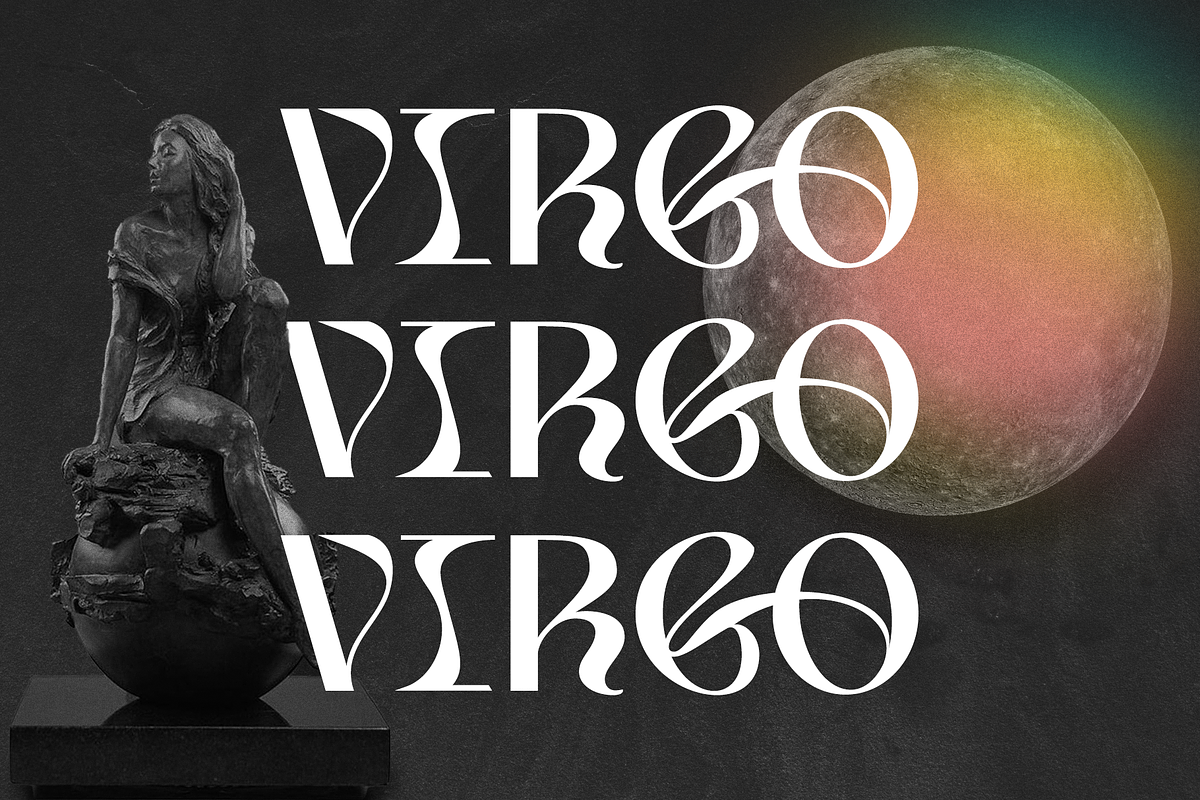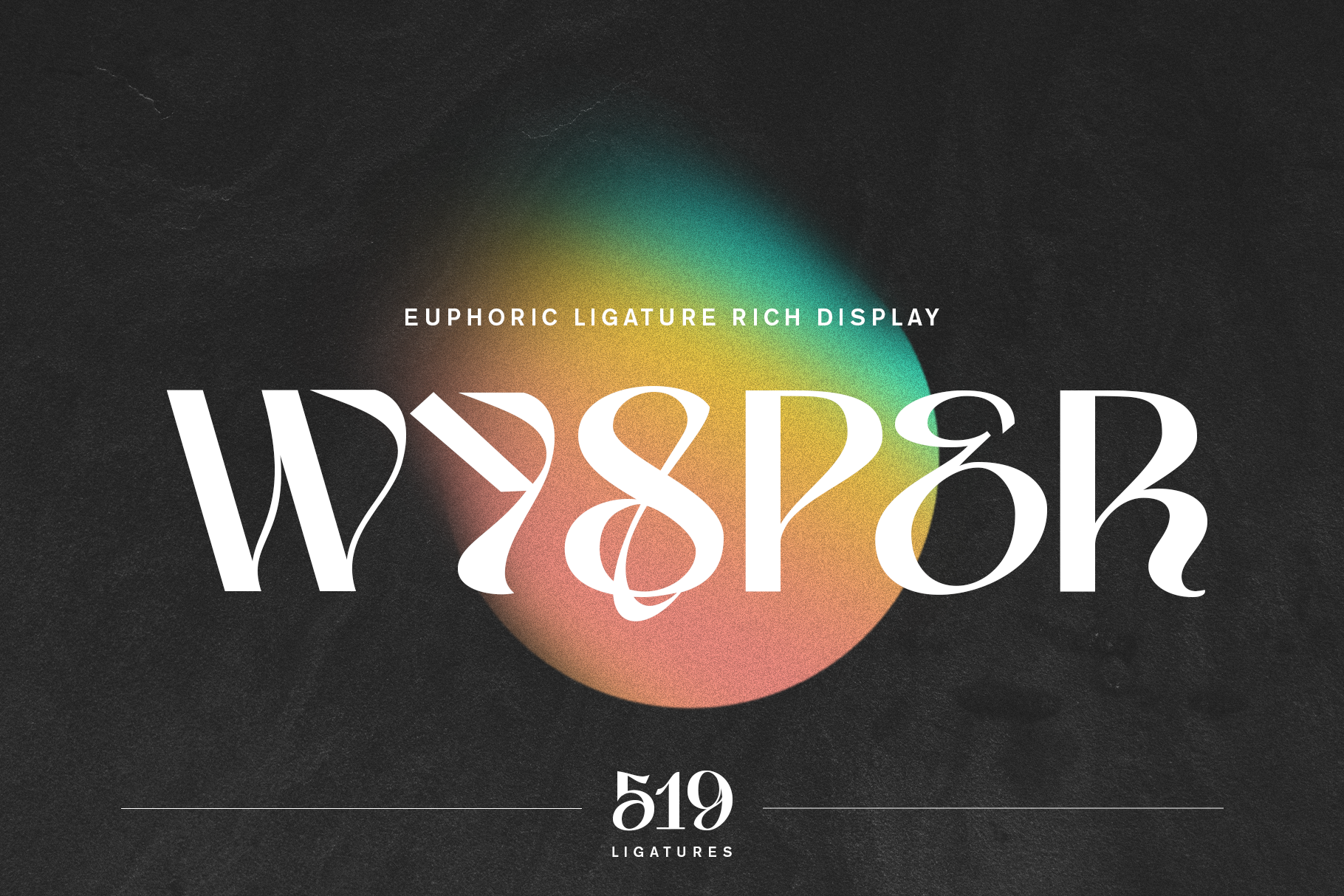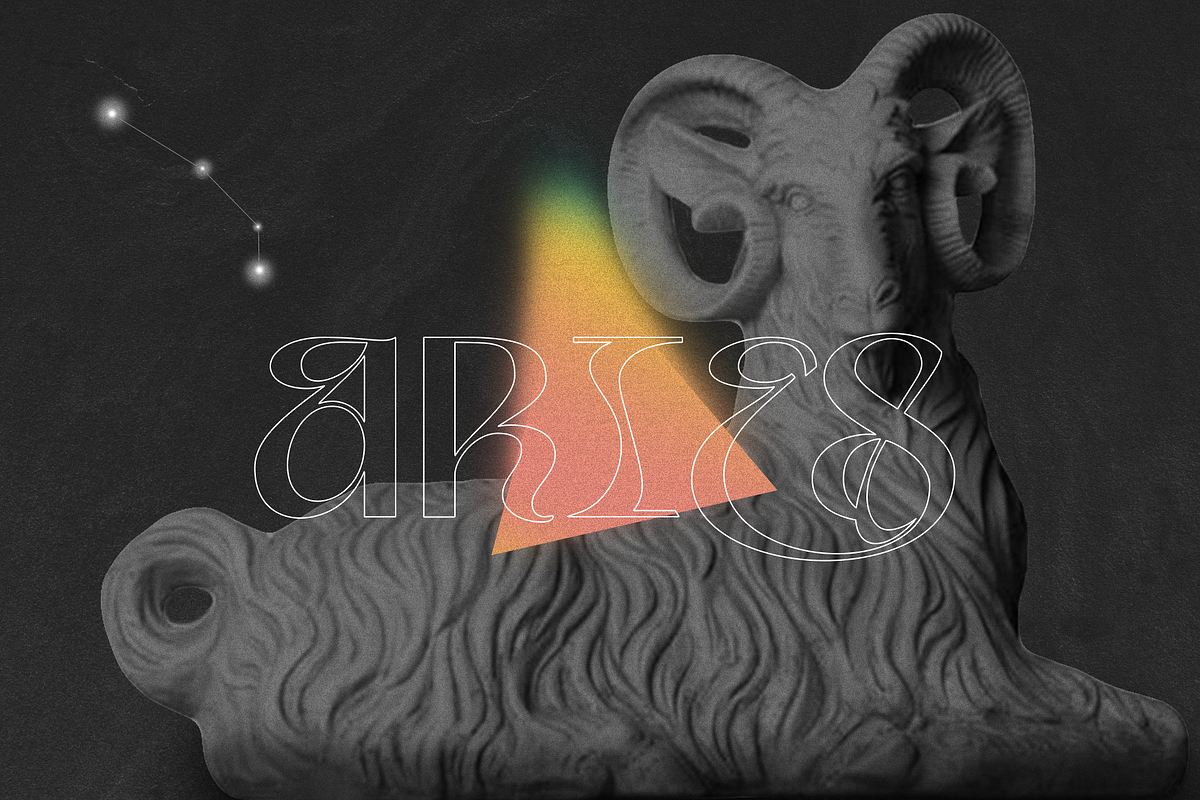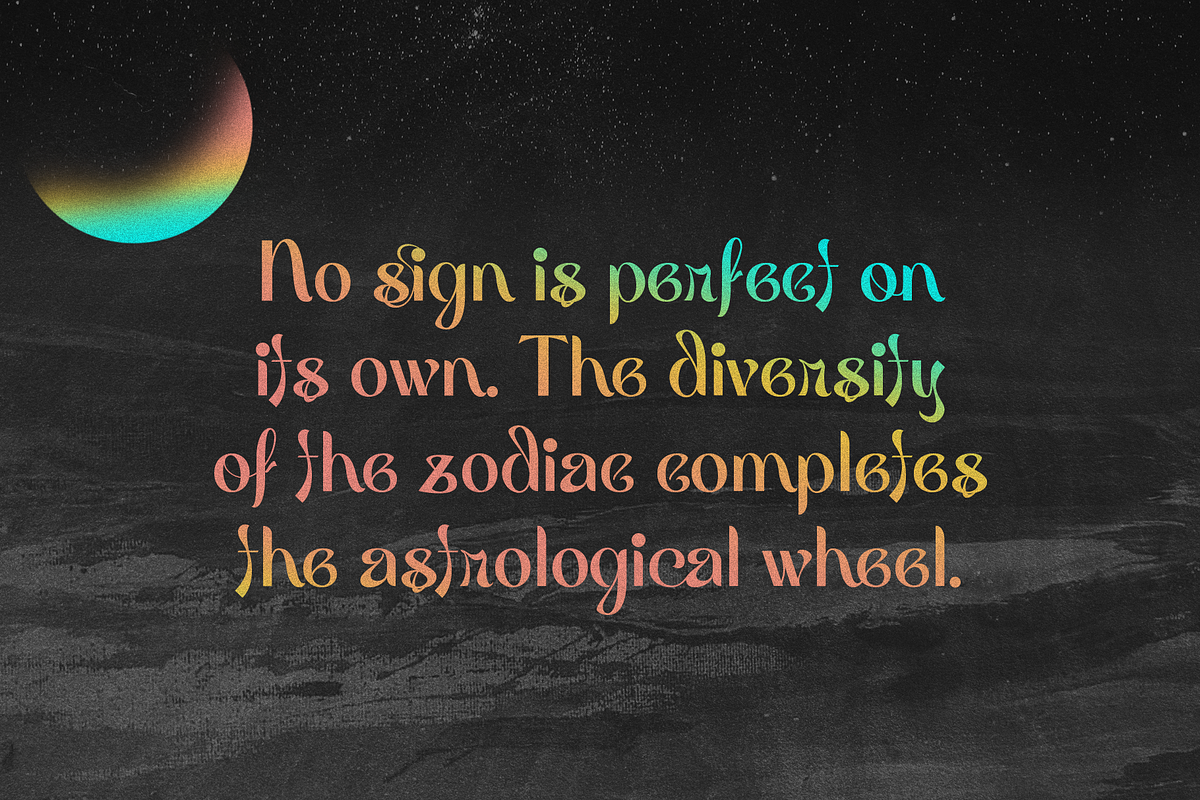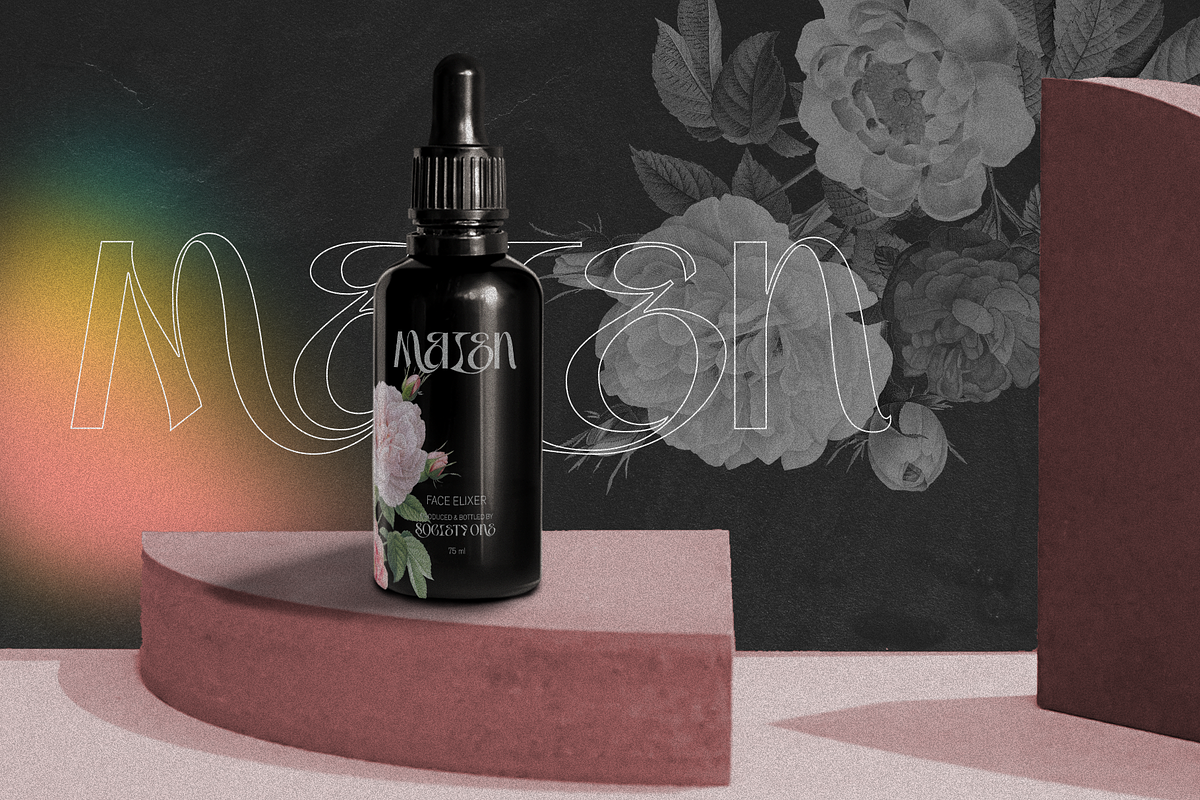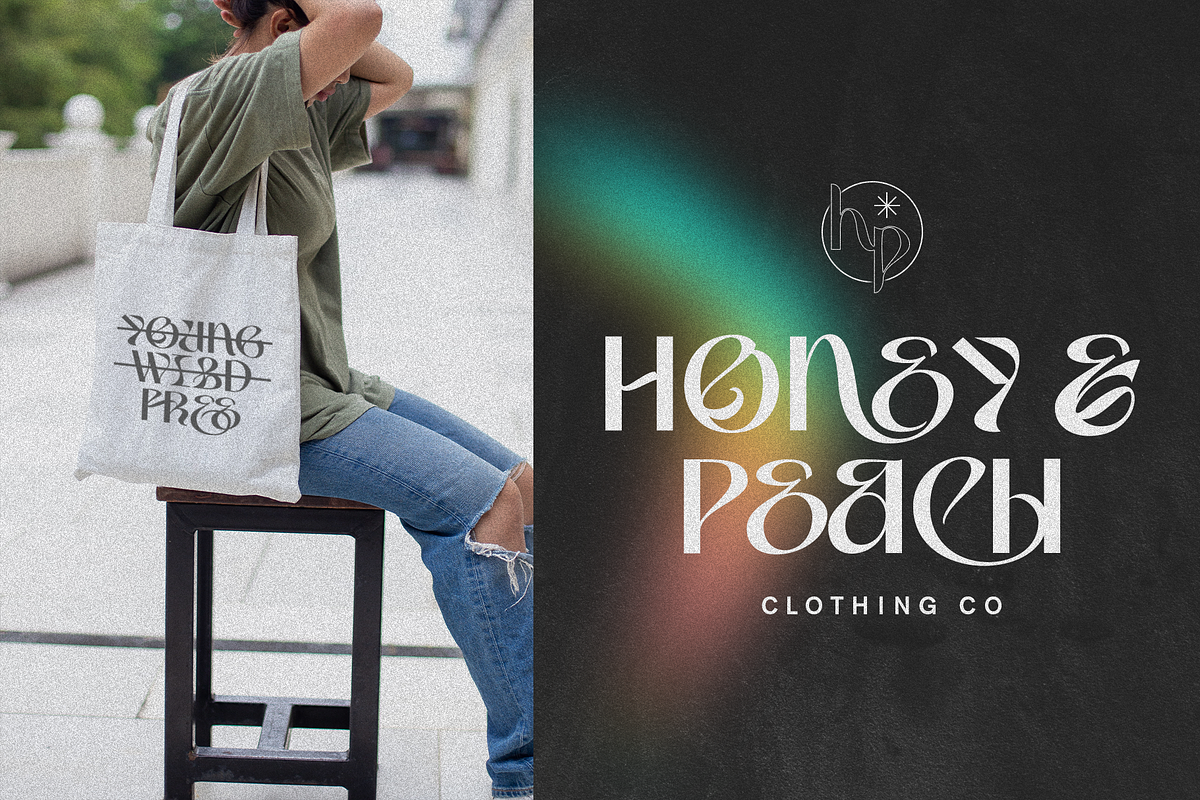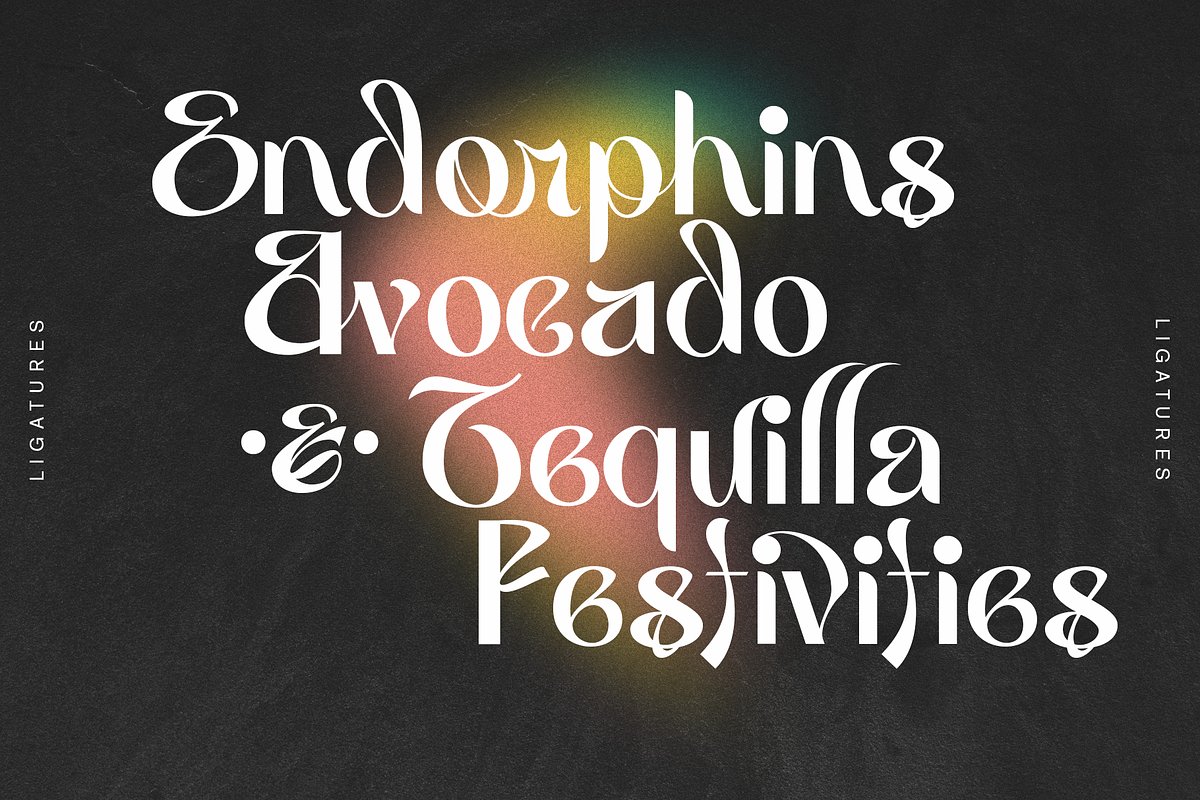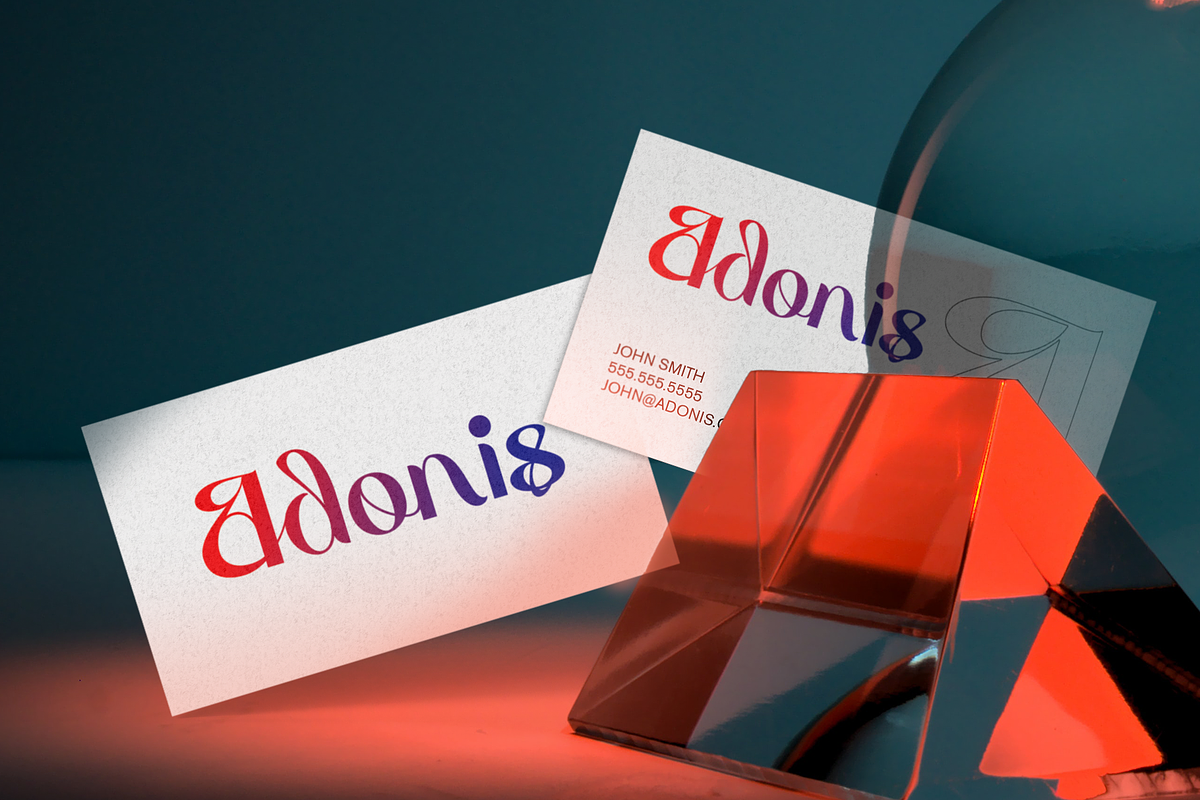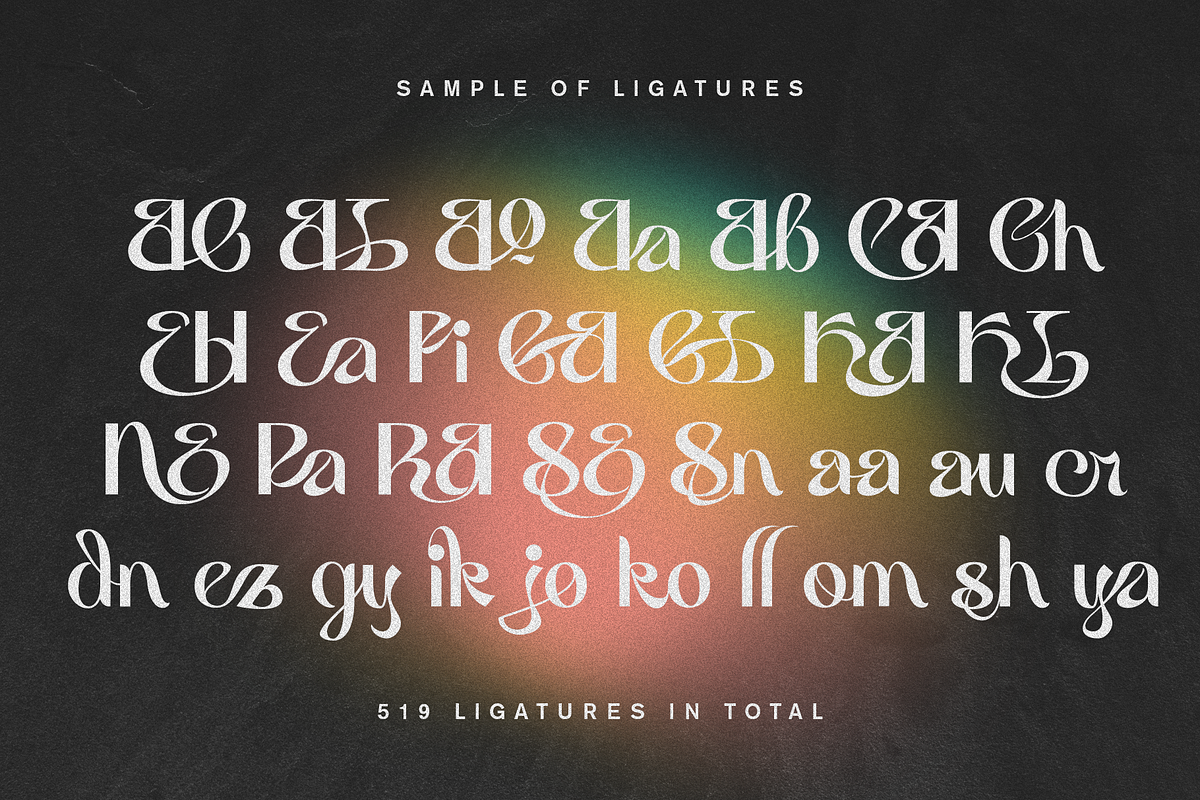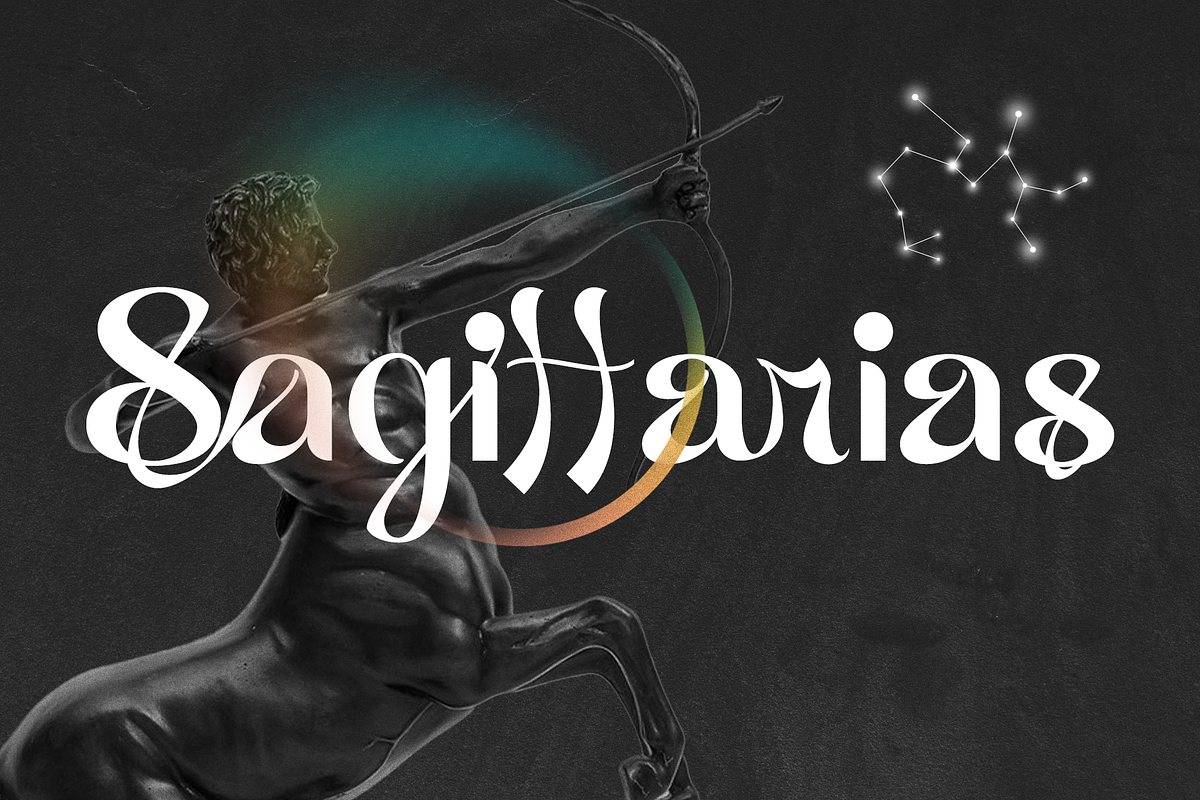
Wysper Font
Introducing Wysper Font!
Wysper is a euphoric ligature rich display font with OpenType features that were created to help each word and letter connect and flow perfectly.
This font features 500+ ligatures with a ton of unique alternate letters that will truly give your designs an exclusive individualized look.
The idea behind this modern display font was to bring in elements from each of the main kinds of fonts, from serif to sans serif to blackletter to script. The goal was to see how many different elements I could bring in to create something truly unique!
- 519 Hand crafted ligatures + 108 Unique Alternates to make your new design truly yours.